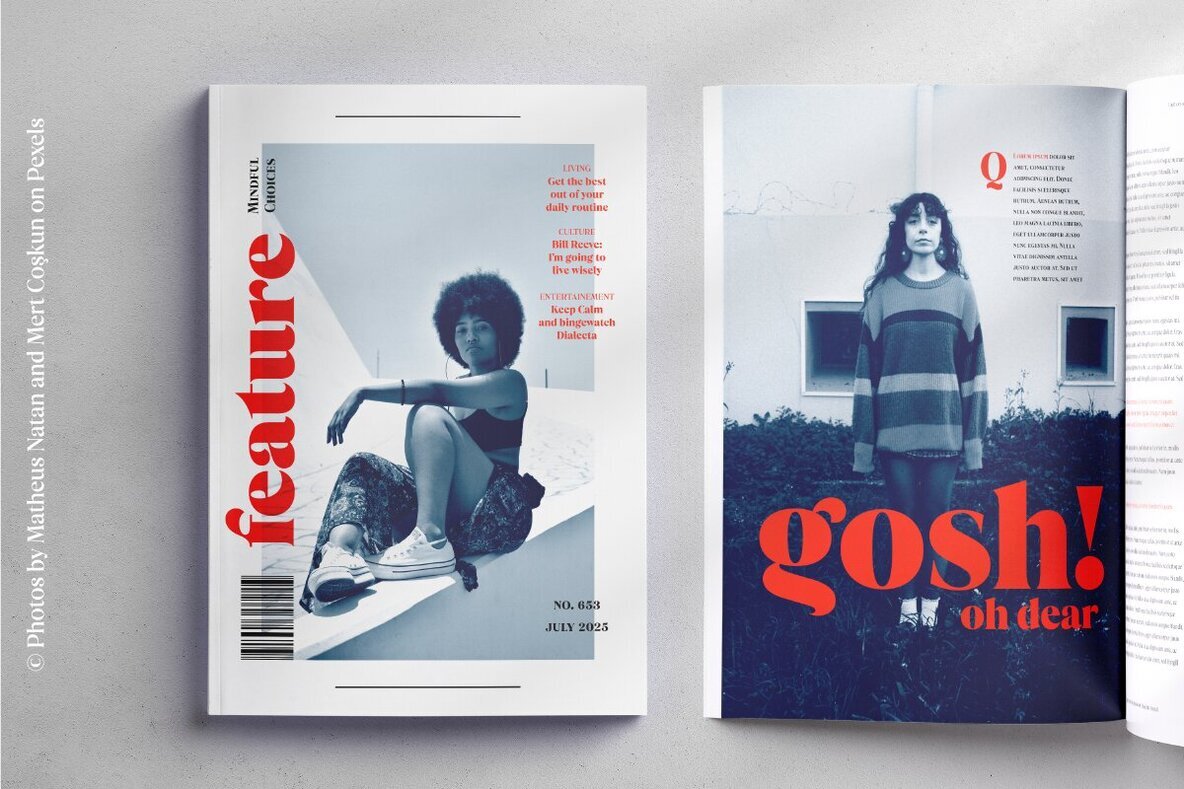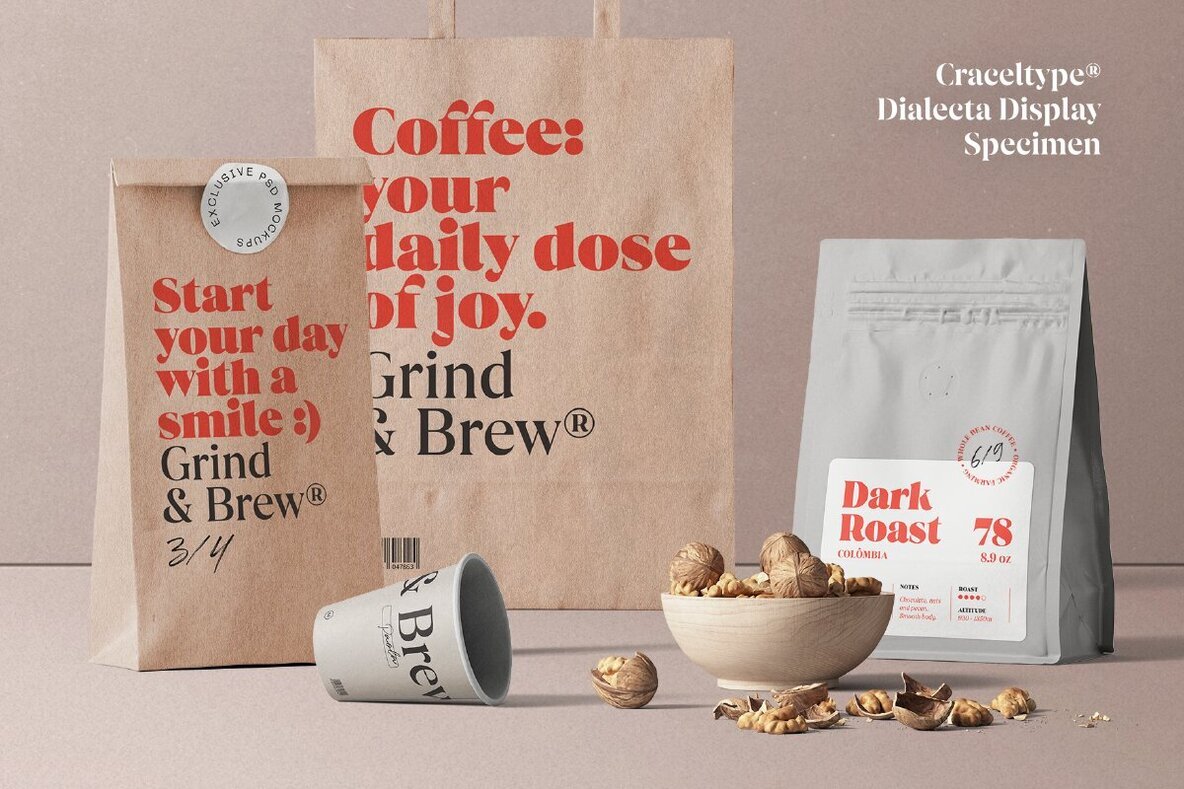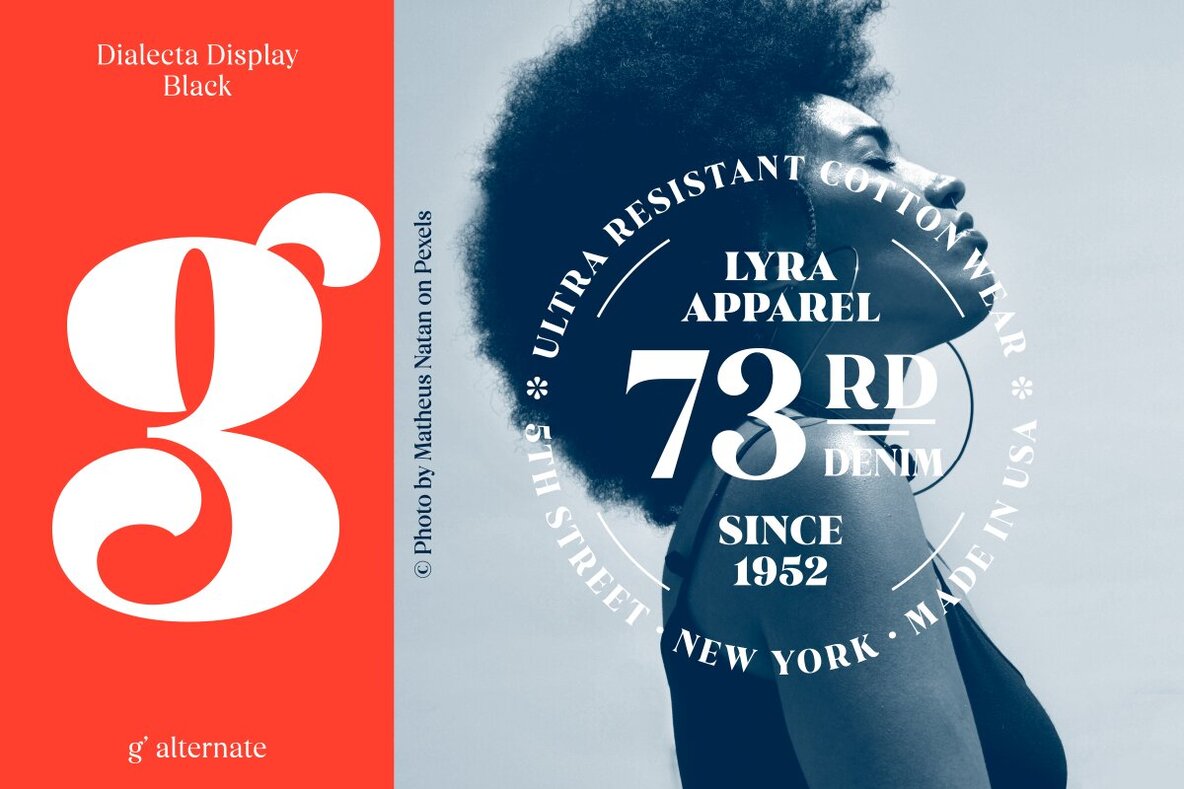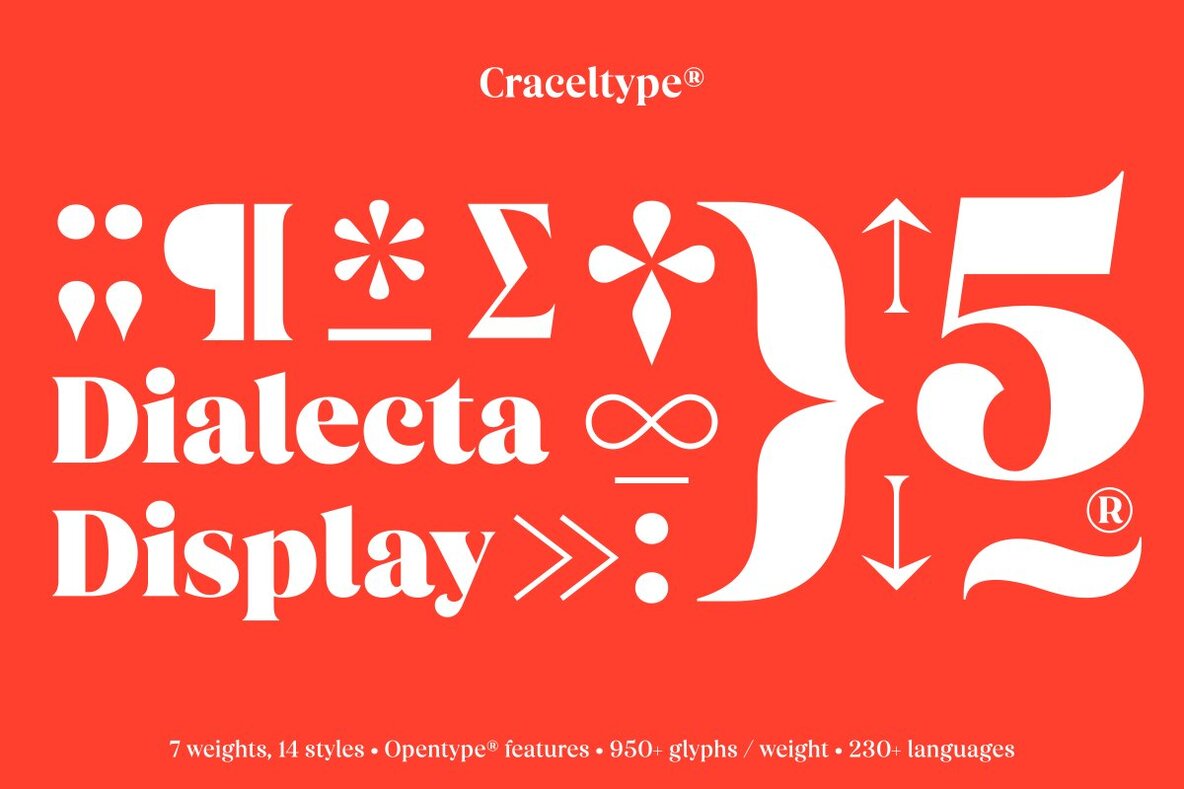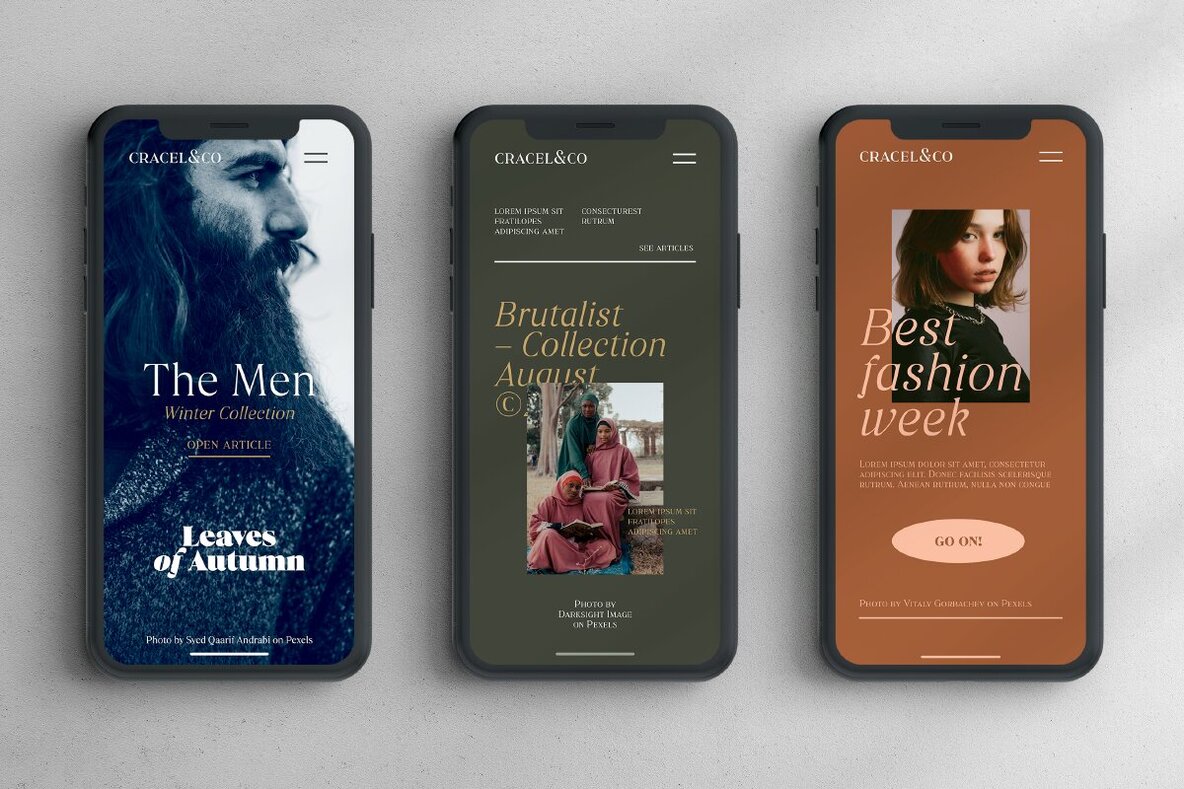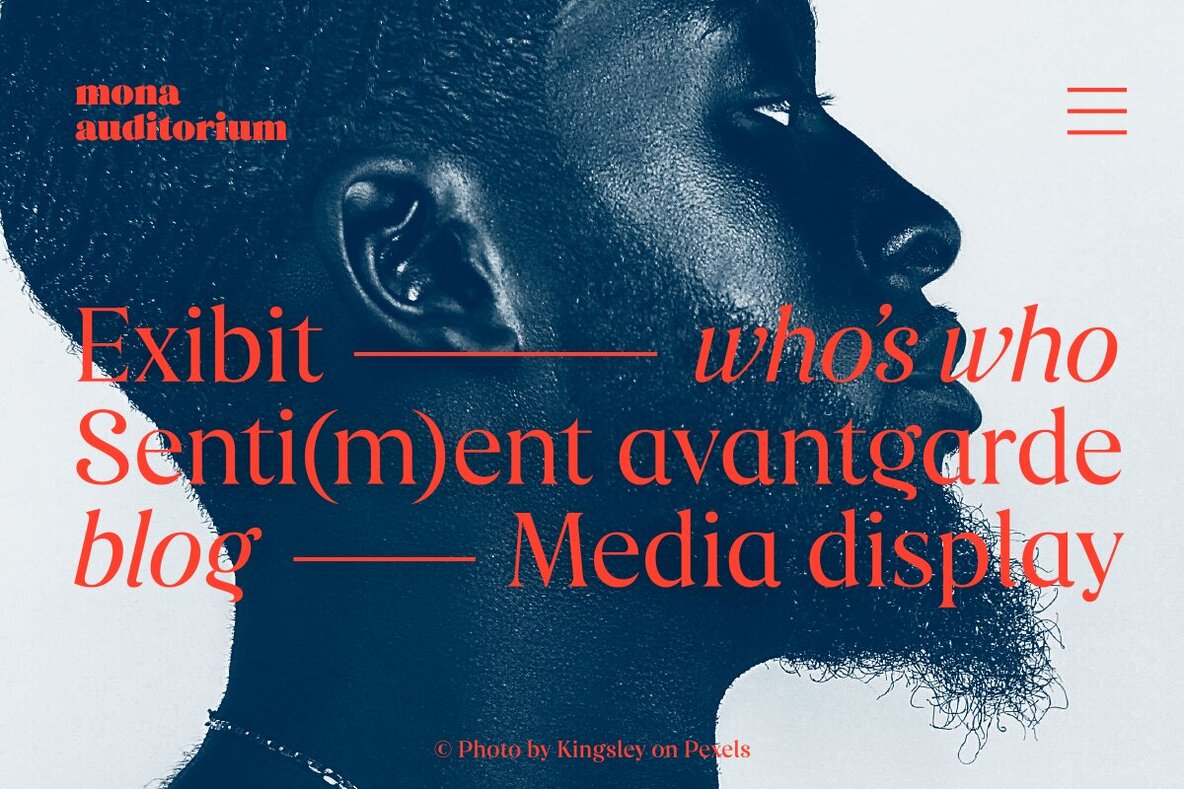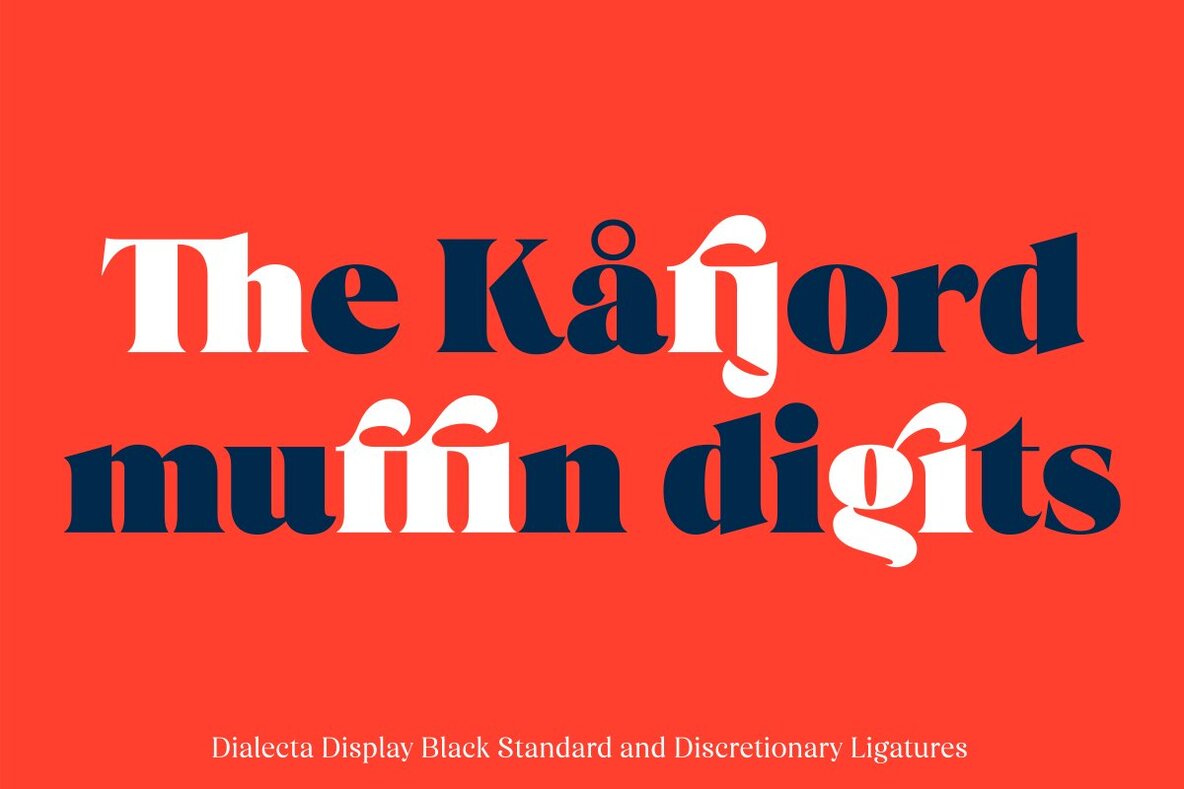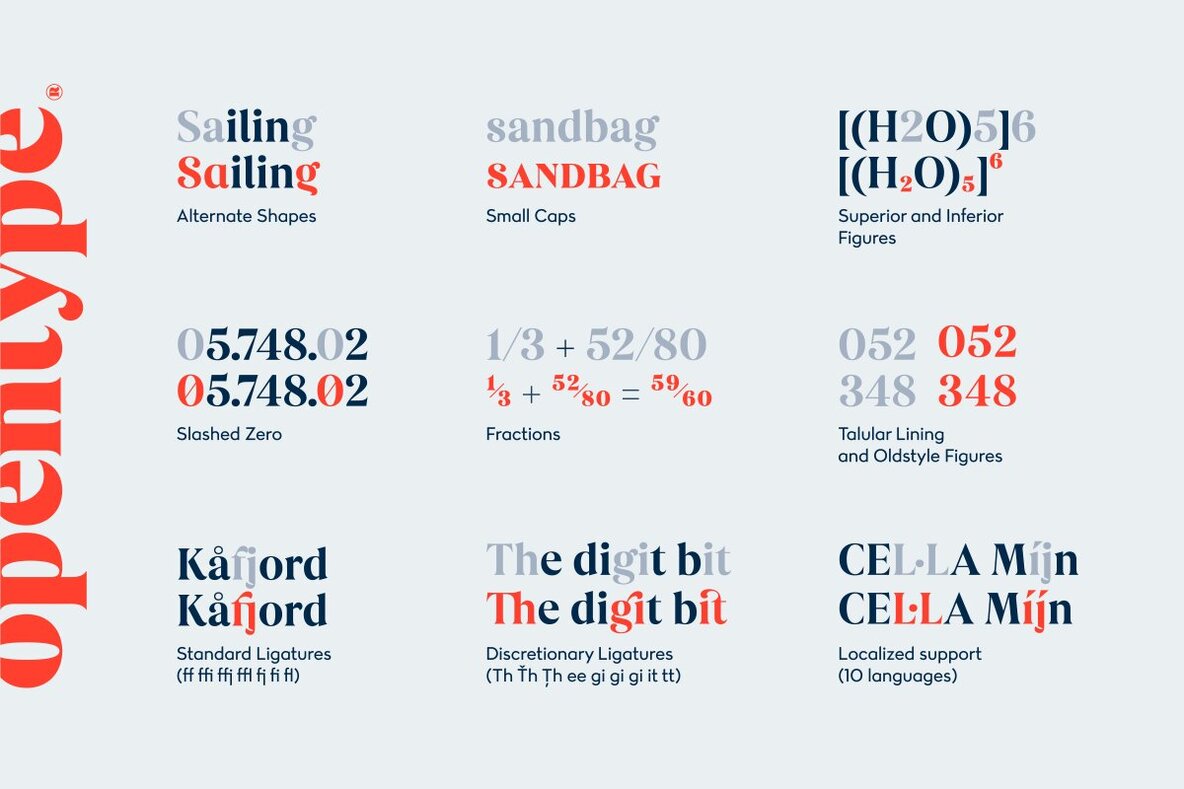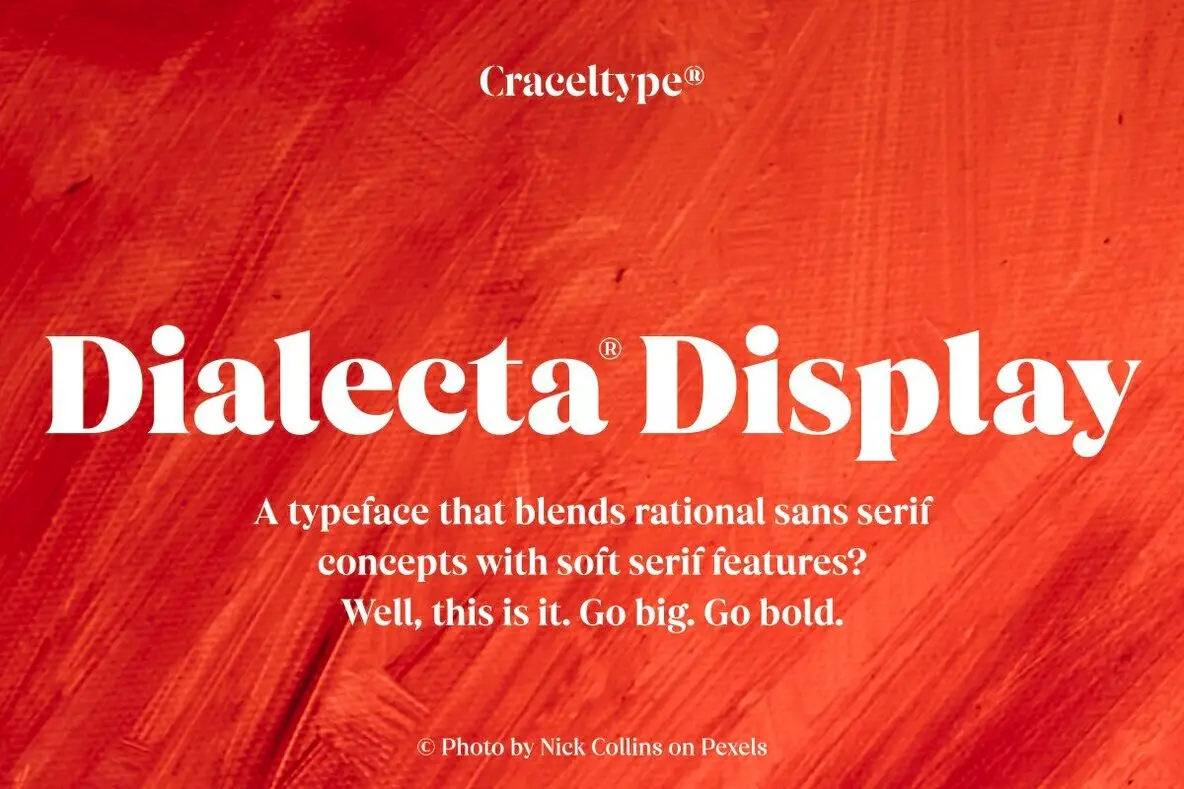
Dialecta Display Font
Conceived from the challenge of designing a rational serif typeface, Dialecta Display embodies style and distinction. This font gracefully marries geometric principles of sans serif with the refined allure of serif fonts, offering a unique, clean aesthetic. Its thoughtful design is perfectly suited for striking, bold headlines that demand attention. Featuring a prominent x-height and authentic italics, Dialecta Display offers a remarkable range of 14 styles, each boasting over 950 glyphs. It supports an impressive 230+ languages, ensuring global accessibility and versatility. As part of the Dialecta font family, it includes an extensive array of alternate characters, small caps, ligatures, and case-sensitive forms, making it a highly expressive choice for headline settings.Dialecta Display: A Harmonious Blend of Geometry and Elegance